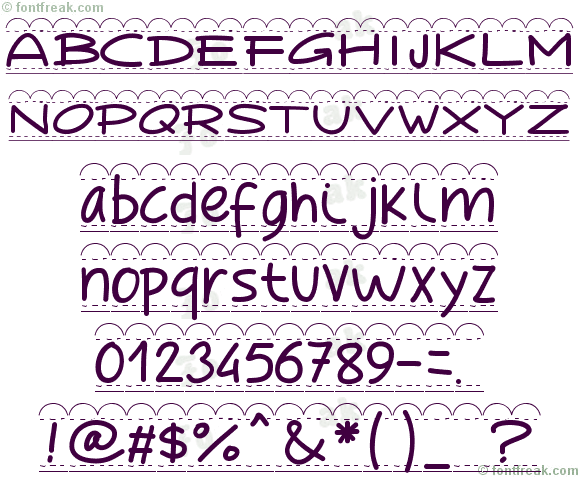
PWBroderie
About PWBroderie
Introducing the PWBroderie font by Peax Webdesign, a distinctive decorative typeface that seamlessly blends elegance with playful charm. This freeware font falls into the decorative category, making it an excellent choice for projects that require a touch of whimsy and creativity. The visual characteristics of PWBroderie include a moderate stroke weight, creating a balanced appearance that is neither too bold nor too delicate. Its unique contrast adds depth, while the spacing between letters is thoughtfully designed to enhance readability without sacrificing style. The font features charming decorative elements, such as playful curves and whimsical accents, which give it a handcrafted feel.
PWBroderie is particularly well-suited for a range of specific use cases. It shines in wedding invitations, where its elegant yet approachable style can set the perfect tone for the celebration. Additionally, this font is ideal for creating engaging restaurant menus that invite diners to explore the culinary offerings. Graphic designers will find it useful for designing eye-catching posters, especially for events or art shows that aim to attract attention. Furthermore, content creators can utilize PWBroderie in social media graphics and promotional materials to add a layer of uniqueness and personality.
The target audience for PWBroderie includes graphic designers, small business owners, and content creators looking for a font that stands out while remaining versatile. With its playful yet sophisticated aesthetic, it provides ample opportunities for creative expression.
In conclusion, the PWBroderie font distinguishes itself through its delightful combination of elegance and whimsy. Perfect for a variety of creative projects, this font invites users to explore its potential while offering a PWBroderie font free download for those eager to incorporate it into their designs.